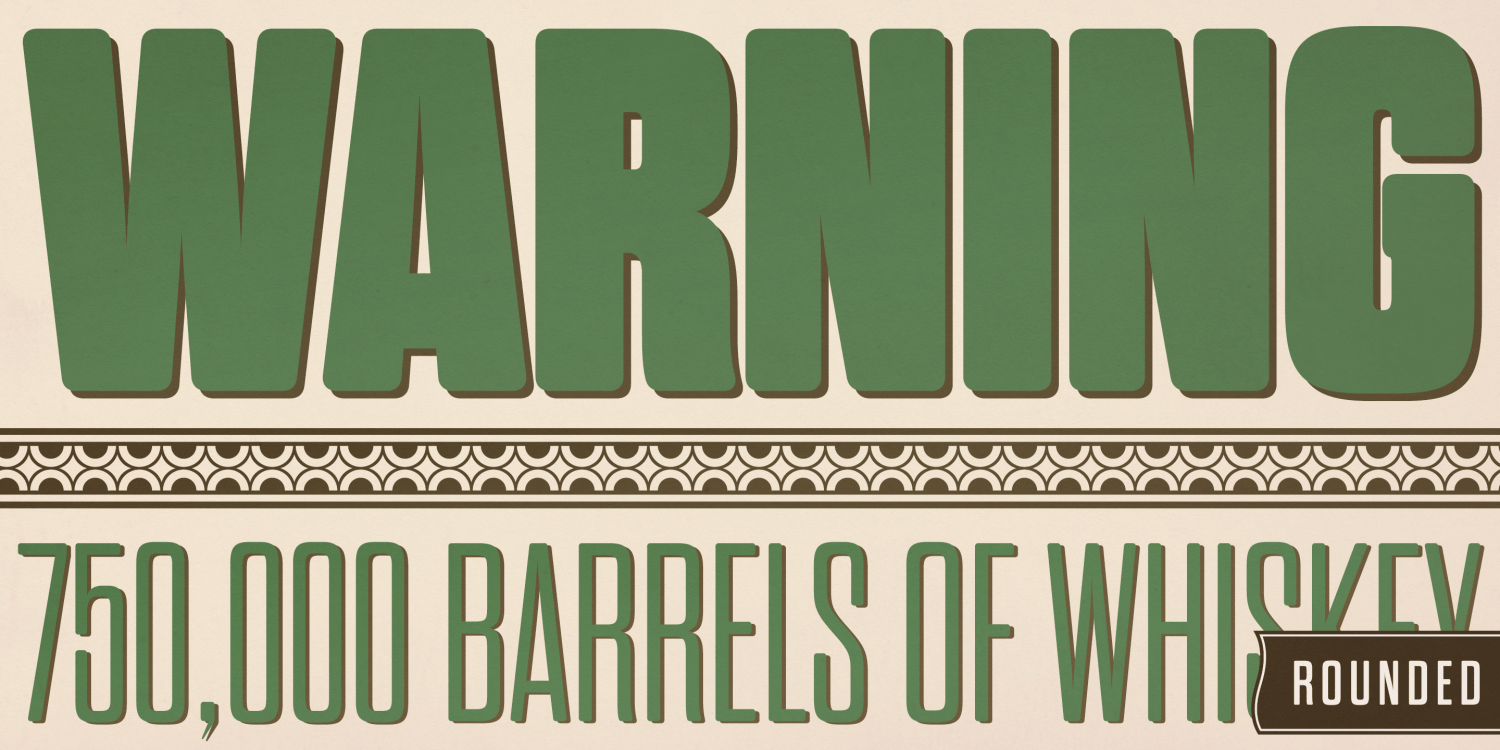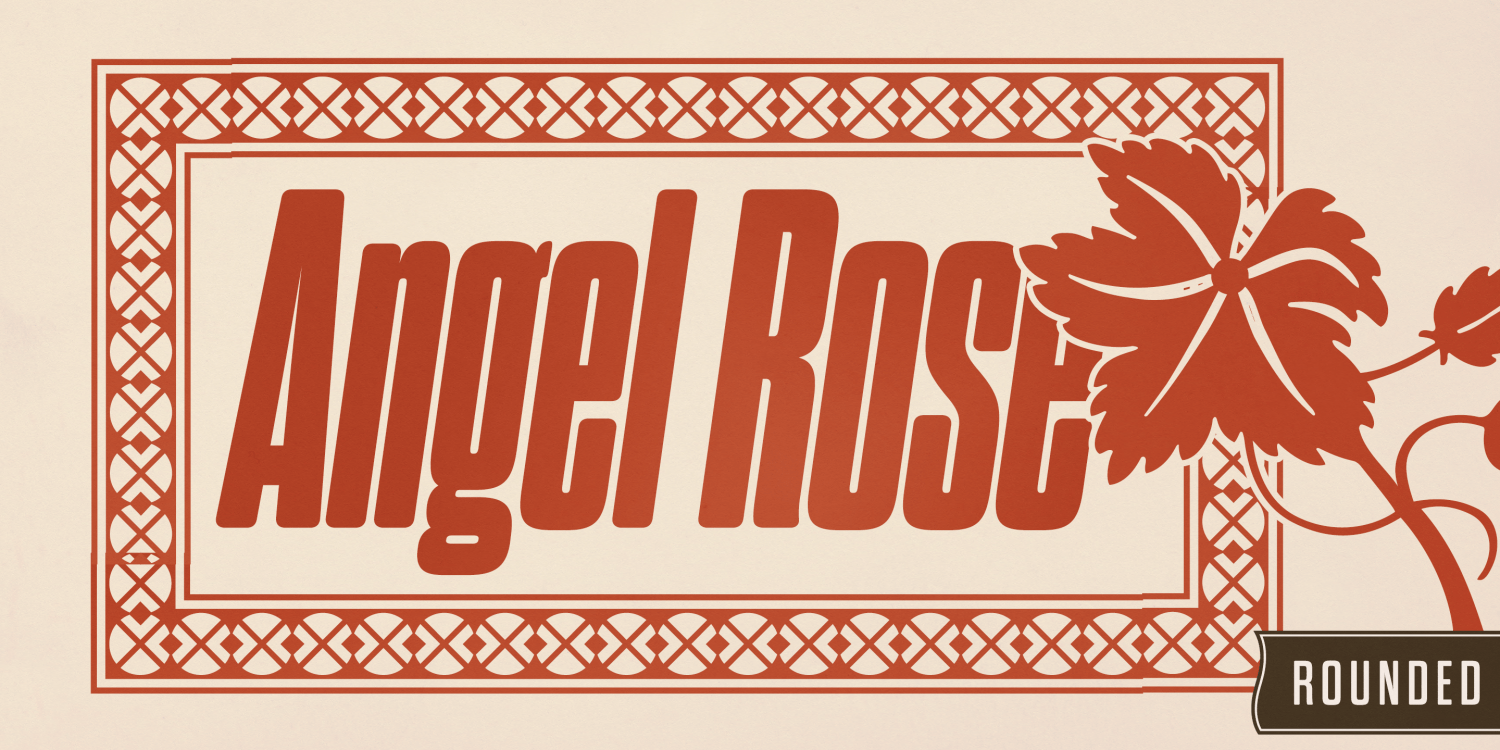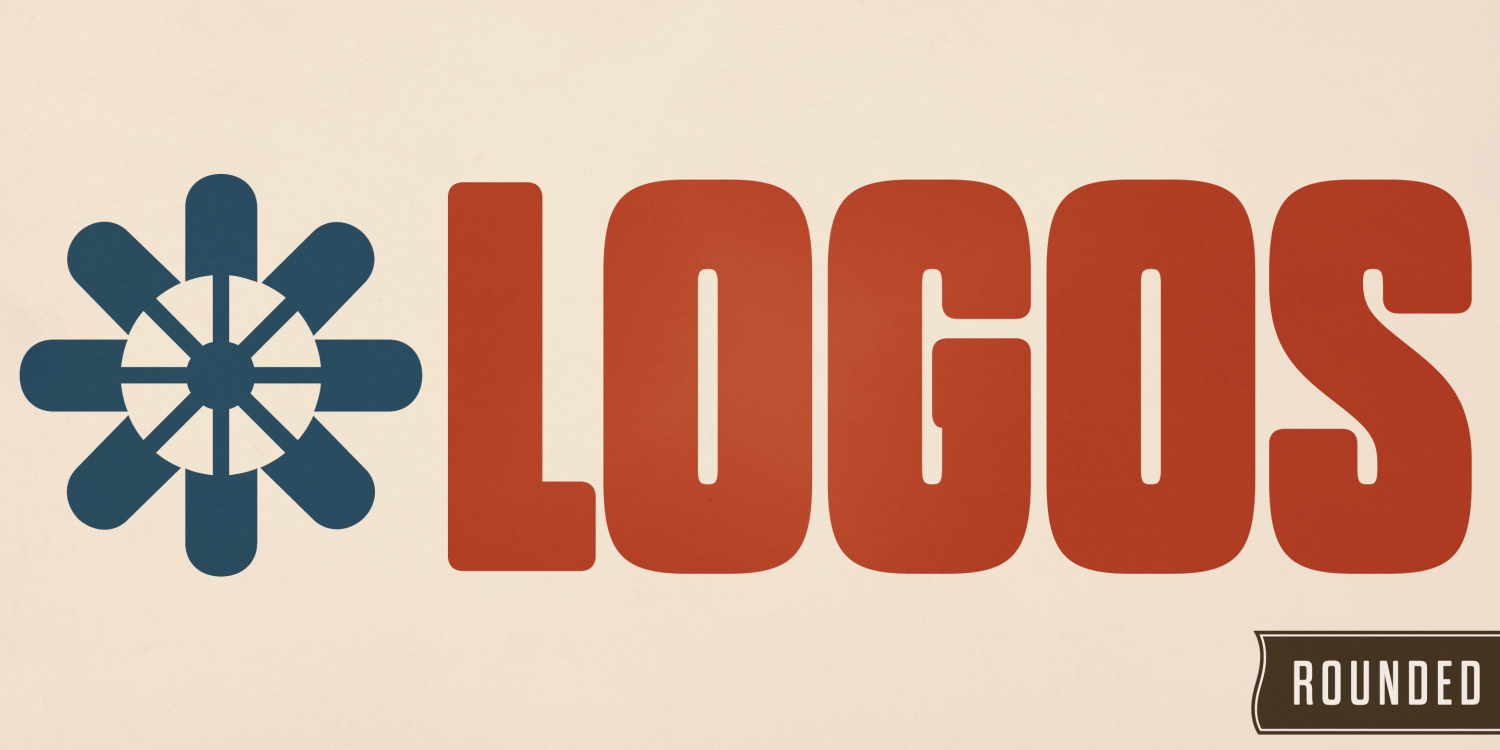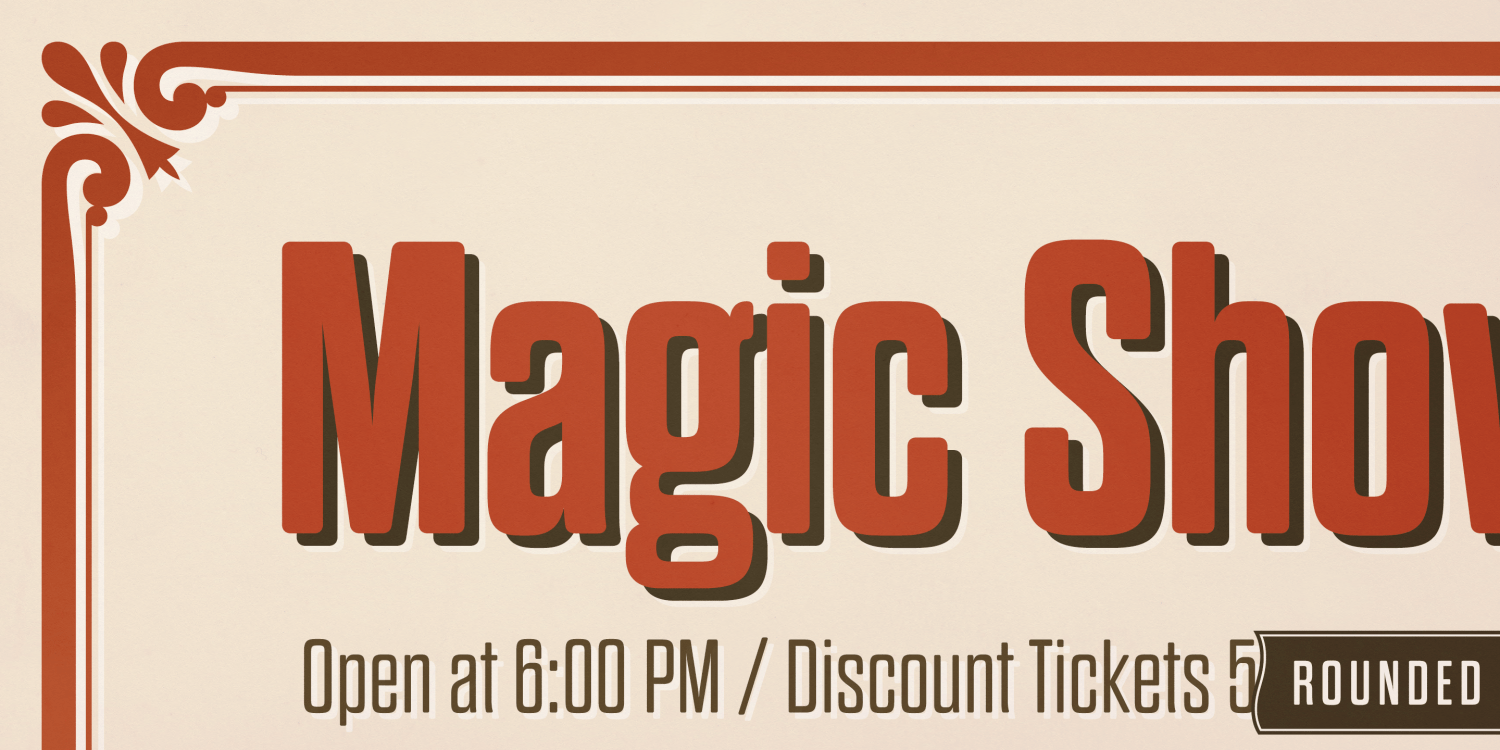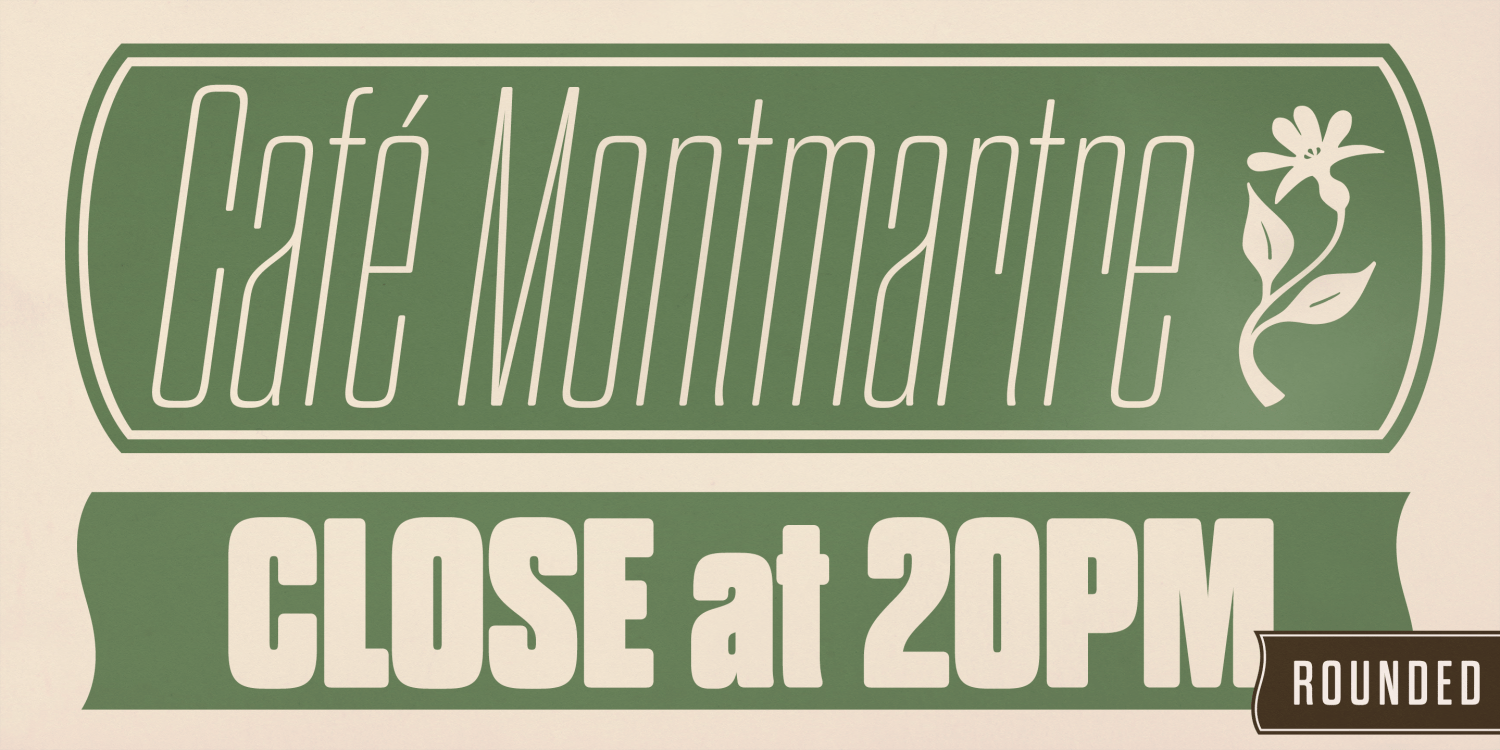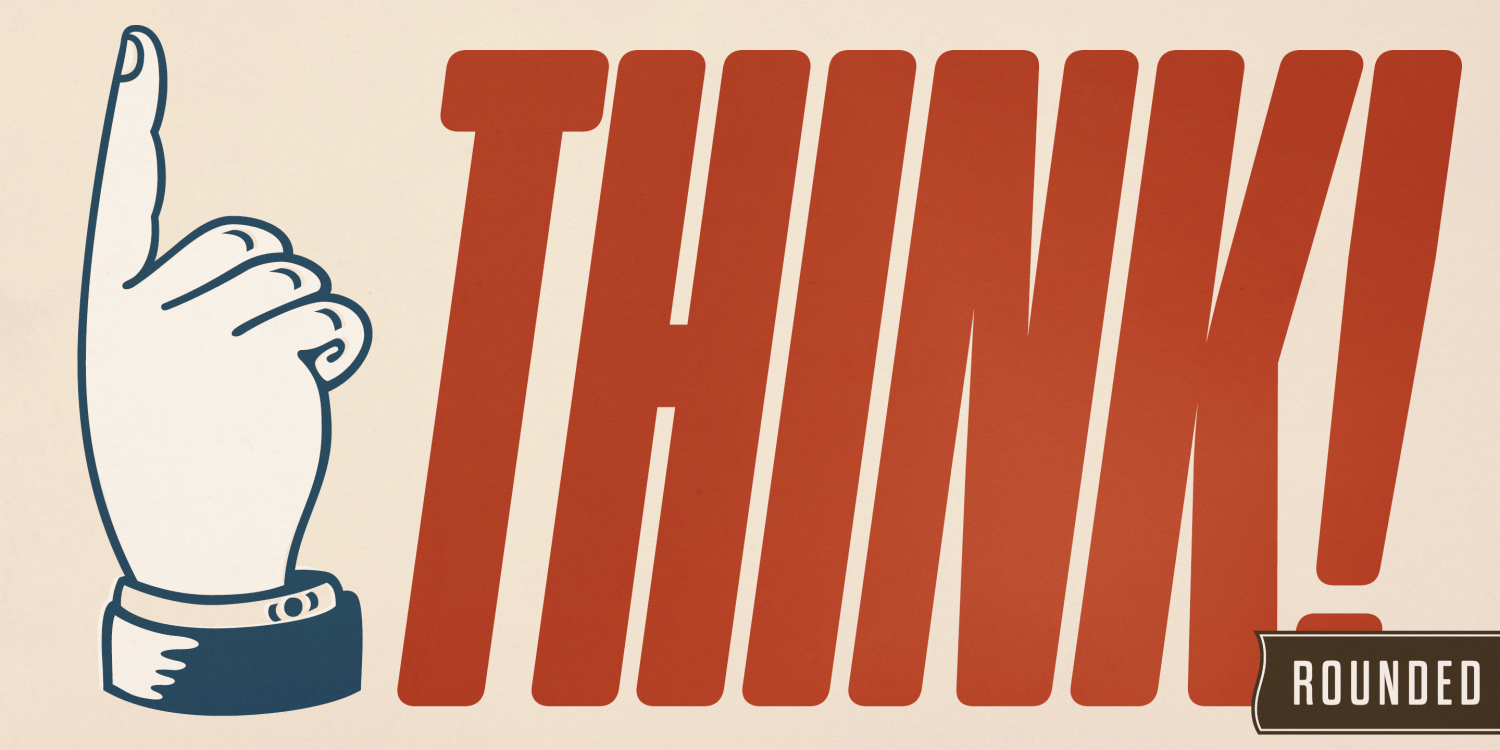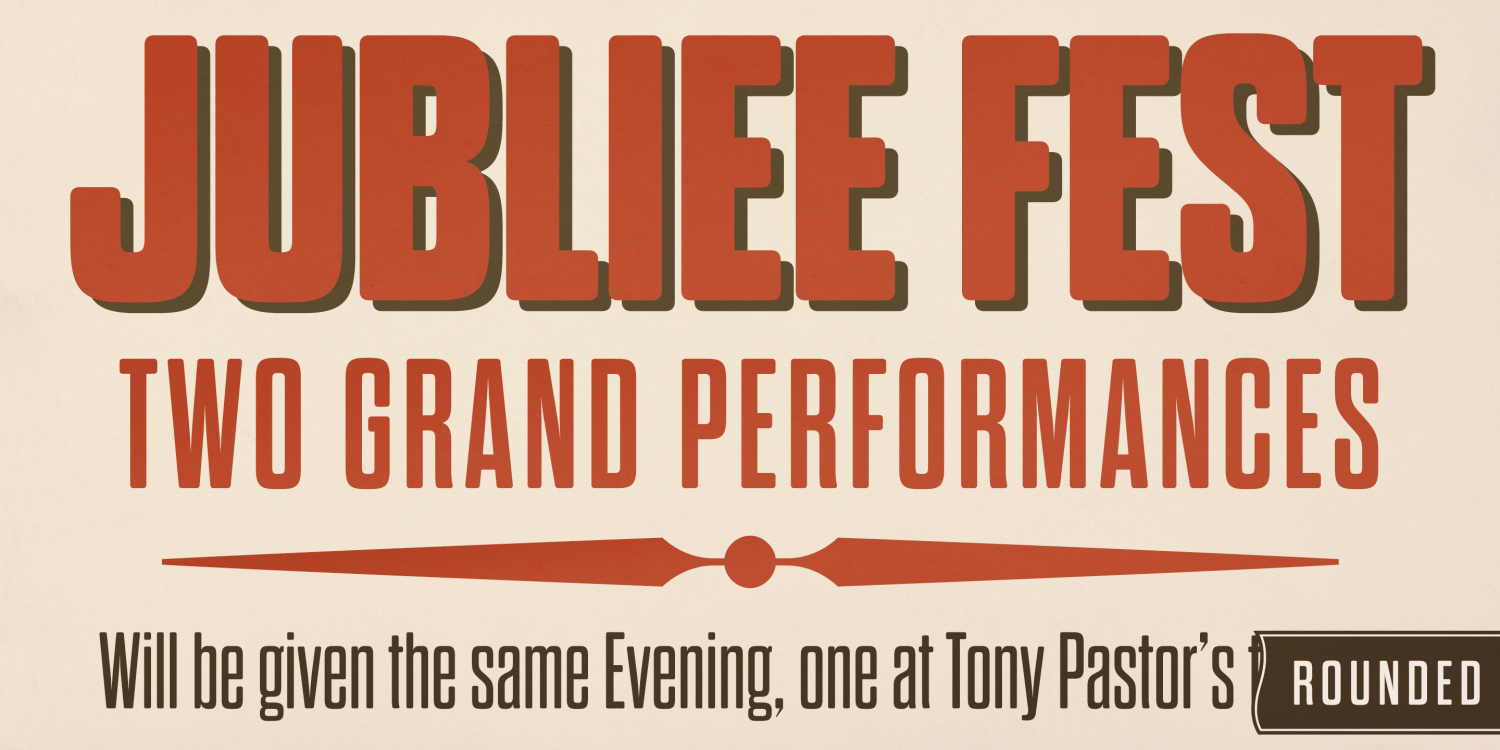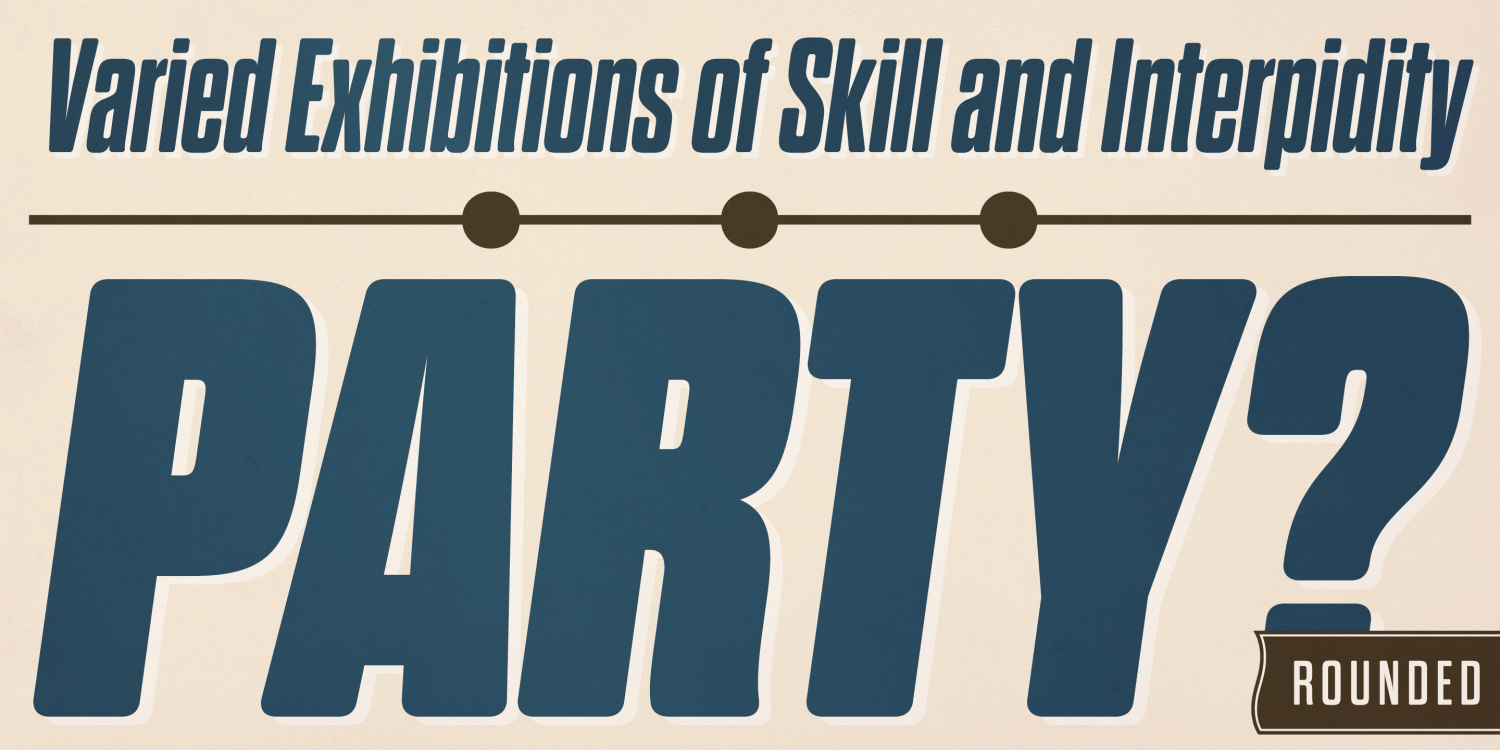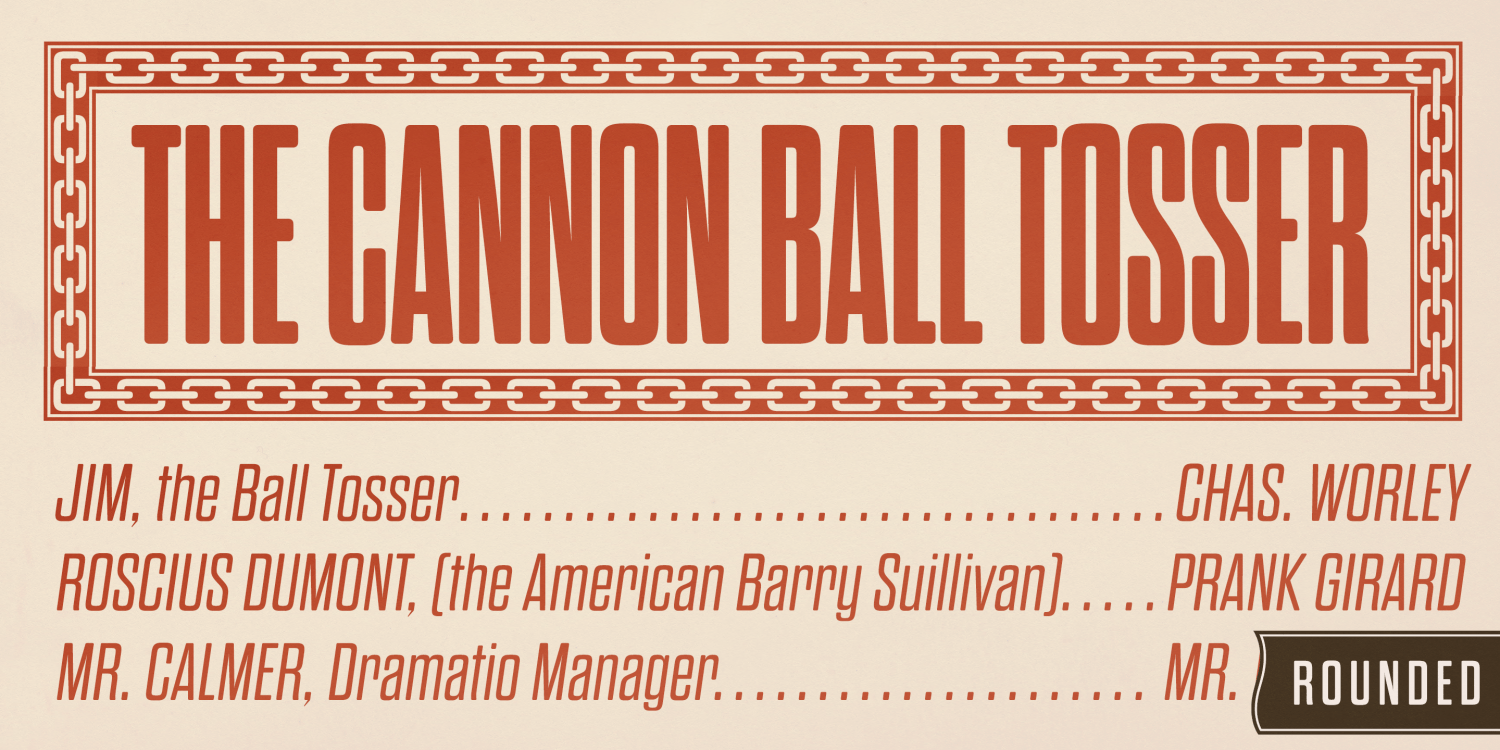
Dharma Gothic Rounded
Font Family by Dharma Type
Dharma Gothic Rounded is an antiqued sans serif typeface inspired by 19th-century wood type, with a softer, friendlier twist.
Each glyph has been carefully crafted to capture a retro, nostalgic feel, while the rounded terminals add warmth and approachability.
This condensed font family includes 42 styles, making it an excellent choice for posters, titles, and any project that requires bold visual impact.
To complement your designs, the Gothic Extras set is available for free, offering a collection of borders, ornaments, and frames inspired by Hamilton’s 1800s vintage catalogs.
Additional typographic features include:
Alternate glyphs for g, r, and y, accessible via the OpenType salt feature
Tabular figures, available via the OpenType tnum feature for aligned numerals in data-heavy layouts